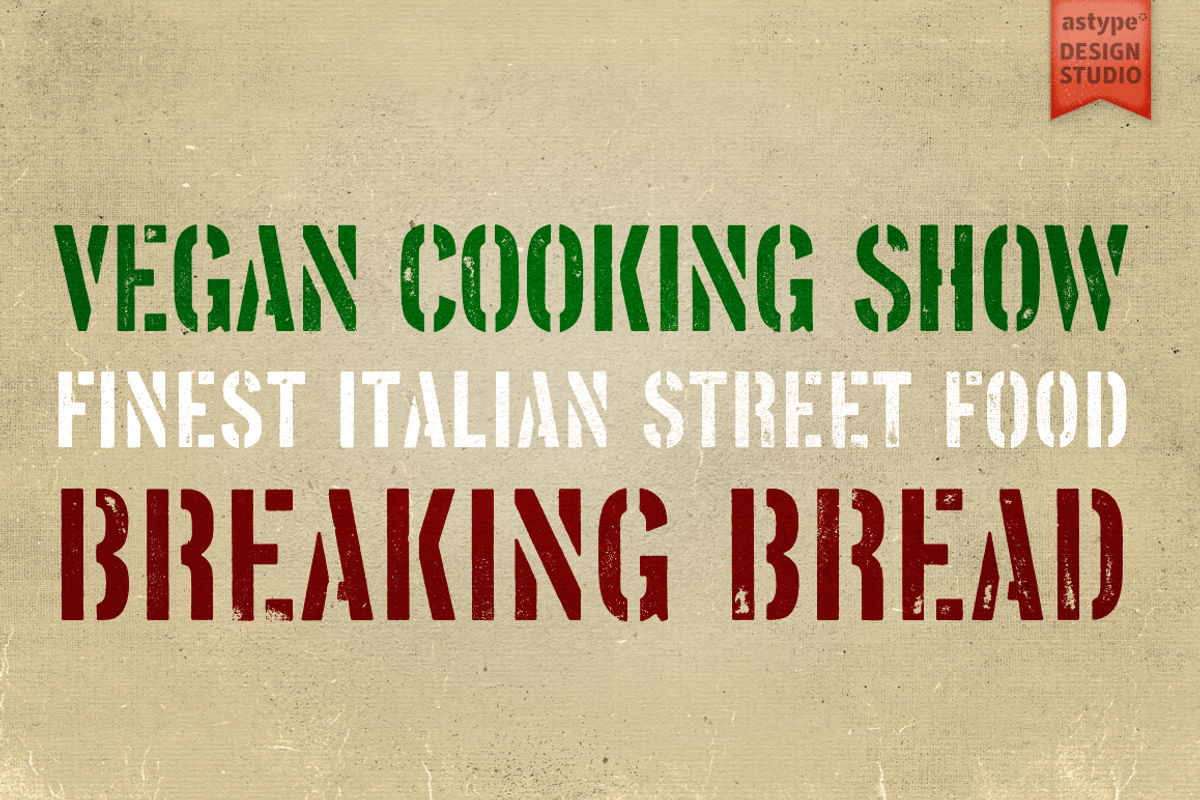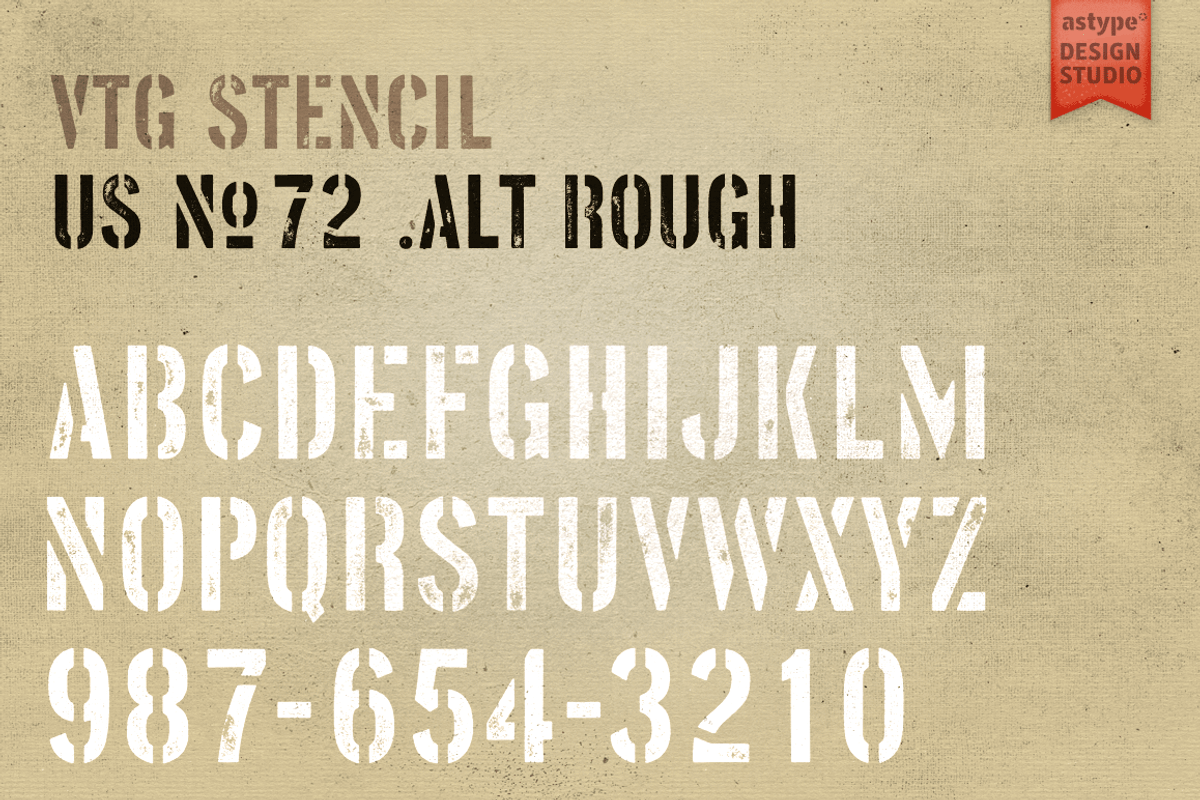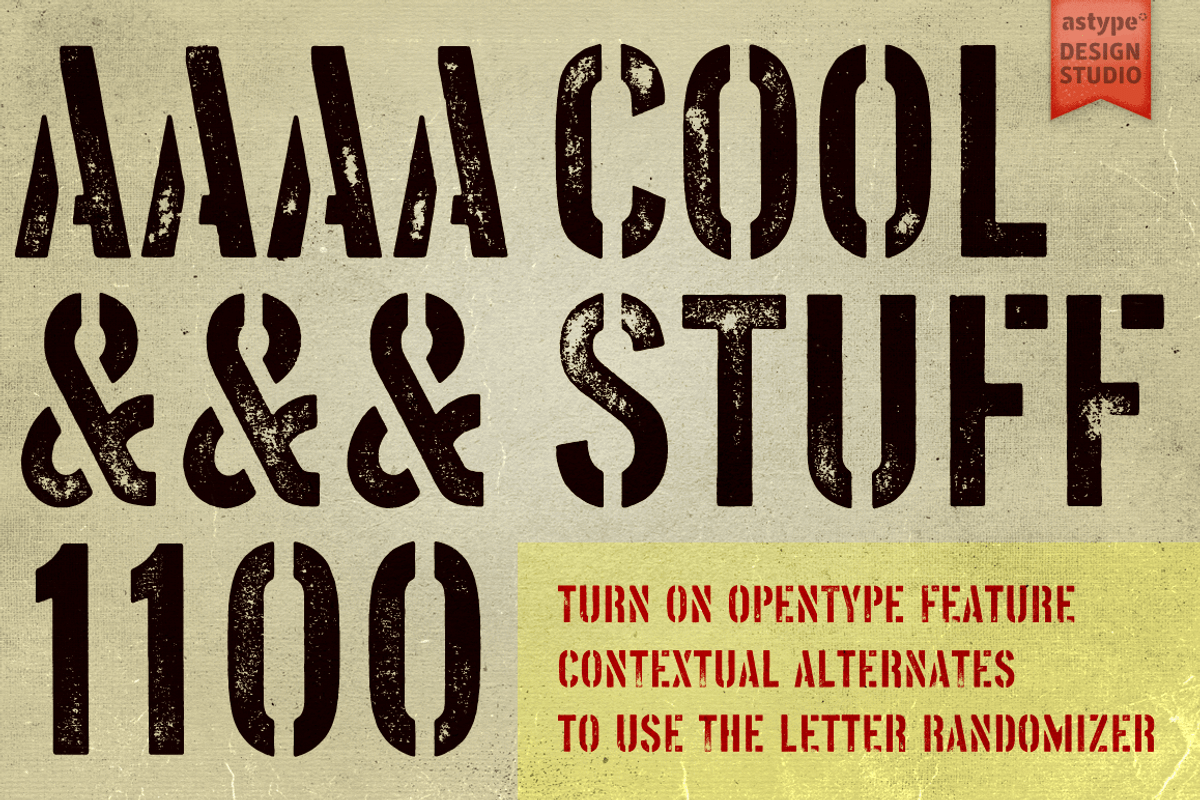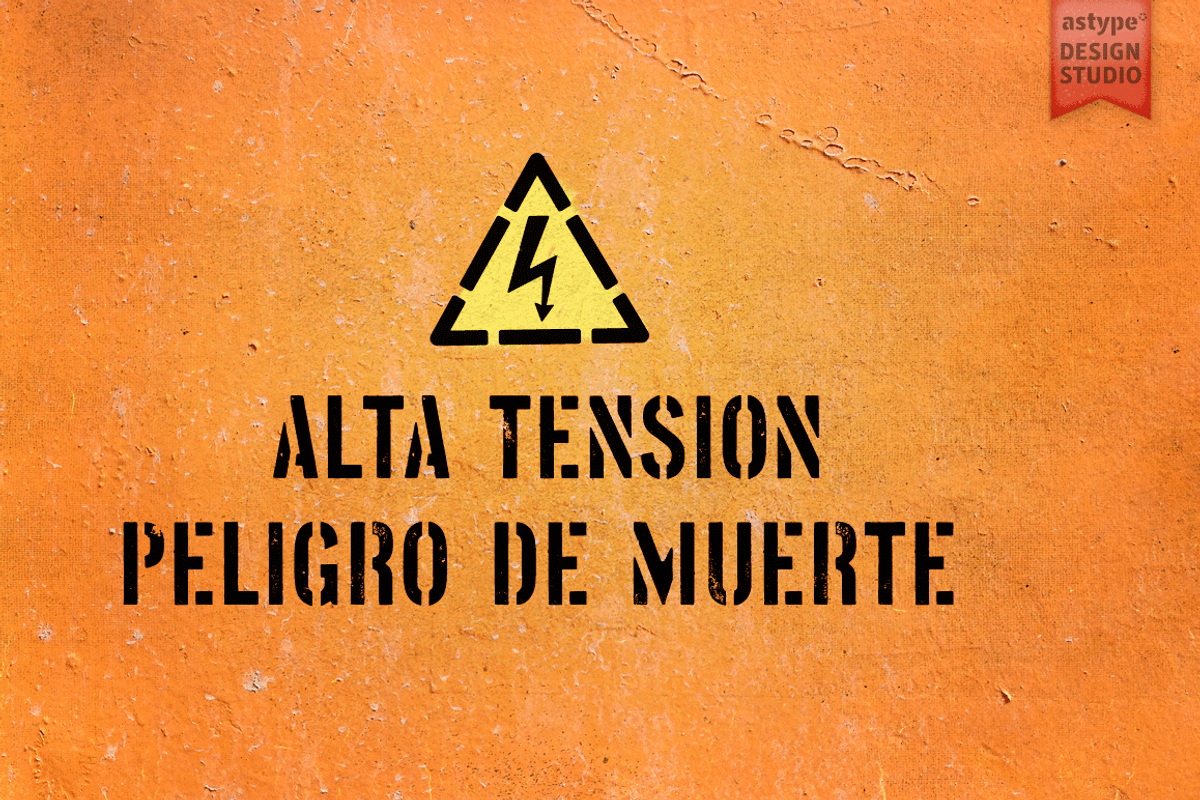
Vtg Stencil US No. 72 - Alt Rough
Vtg Stencil US No.72
The Vtg Stencil fonts from astype are based on real-world stencils from several countries. The US No. 72 design was drawn from authentic stencil plates used by the U.S. Army. In 2018 a major upgrade was done and Cyrillic support was added to the fonts.